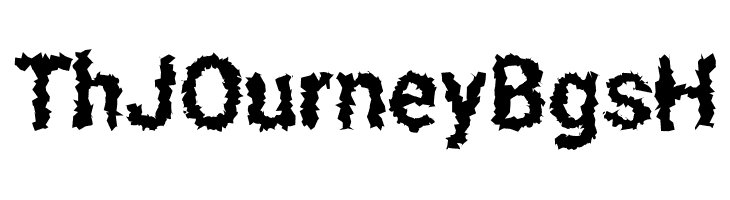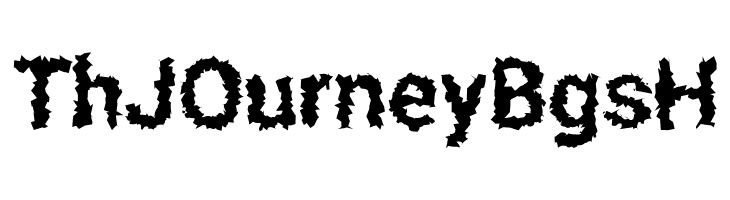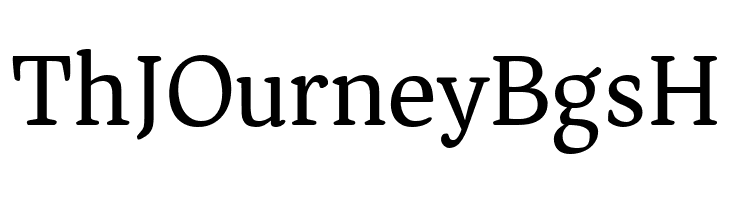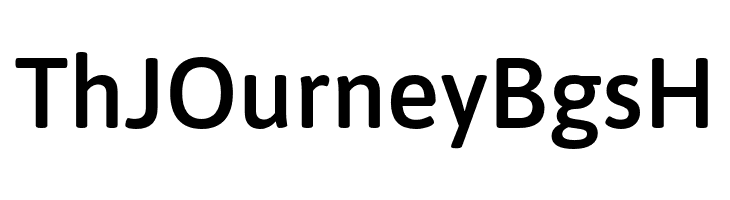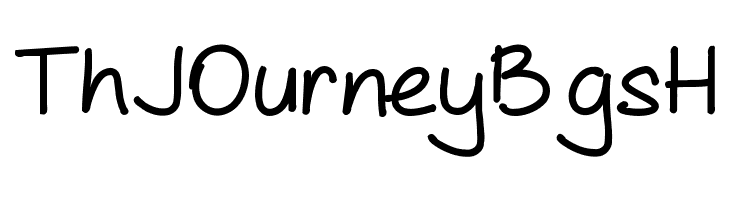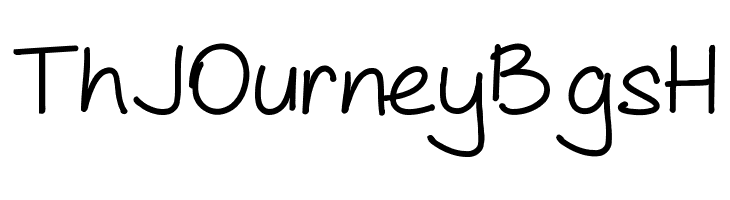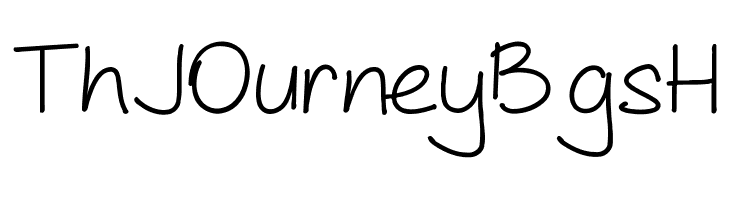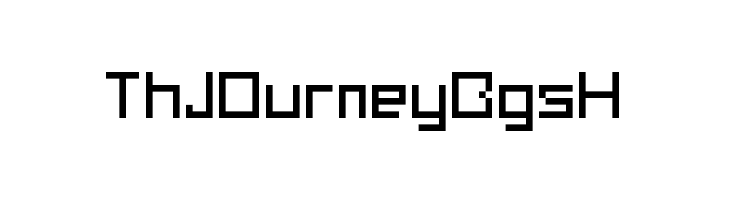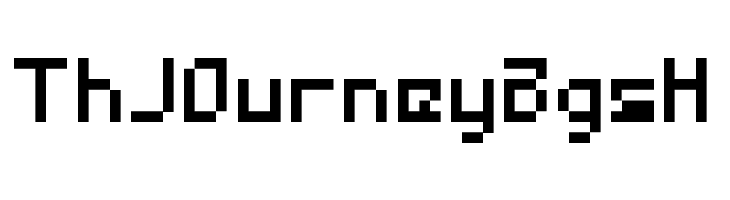
• As Cute As... Bold
A playful, handwritten font with smooth, rounded edges and a casual style.
• As Cute As... Heavy
A playful, handwritten font with rounded edges and a casual style.
• As Cute As... Semibold
A playful handwritten font with smooth curves and a casual, friendly vibe.
• Asai Analogue Regular
A geometric, pixelated font with a retro digital aesthetic.
• Asai Haxxor Regular
A pixelated, blocky font with a retro digital style.
• Asap Symbol
A modern sans-serif font with clean lines and excellent readability.
• Asar
A classic serif font with modern elegance and balanced contrast.
• Asar Regular
A classic serif typeface with elegant strokes and balanced proportions.
• Asimov Aggro
• Asimov Aggro Condensed